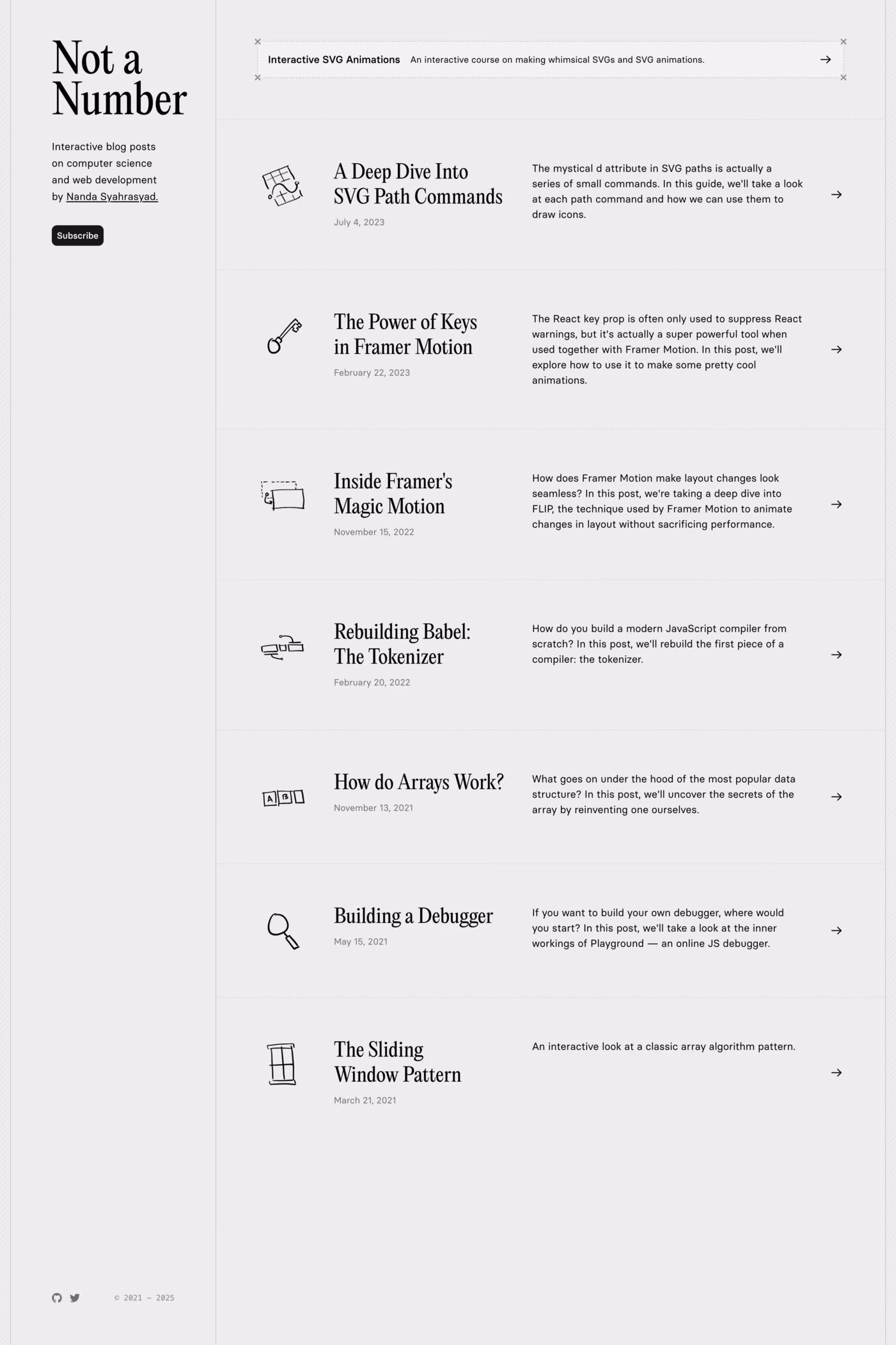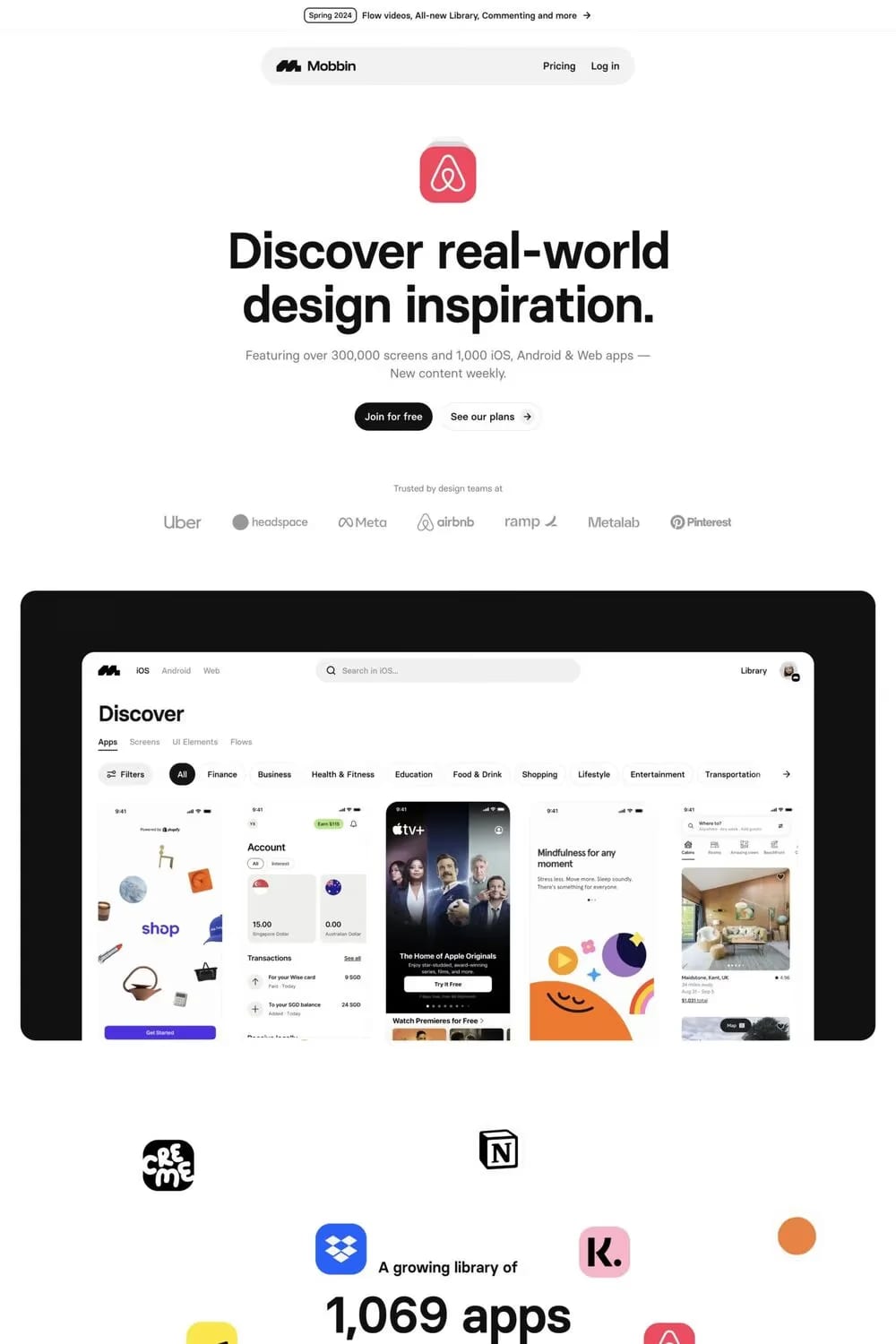
Basier is a sans-serif typeface from Atipo.
Basier, inspired by the International Style, is a neo-grotesque sans serif typeface available in two variants, Circle & Square. The result is a modern and neutral font family that is ideally suited for logotypes, branding, editorial design as well as web and screen design.